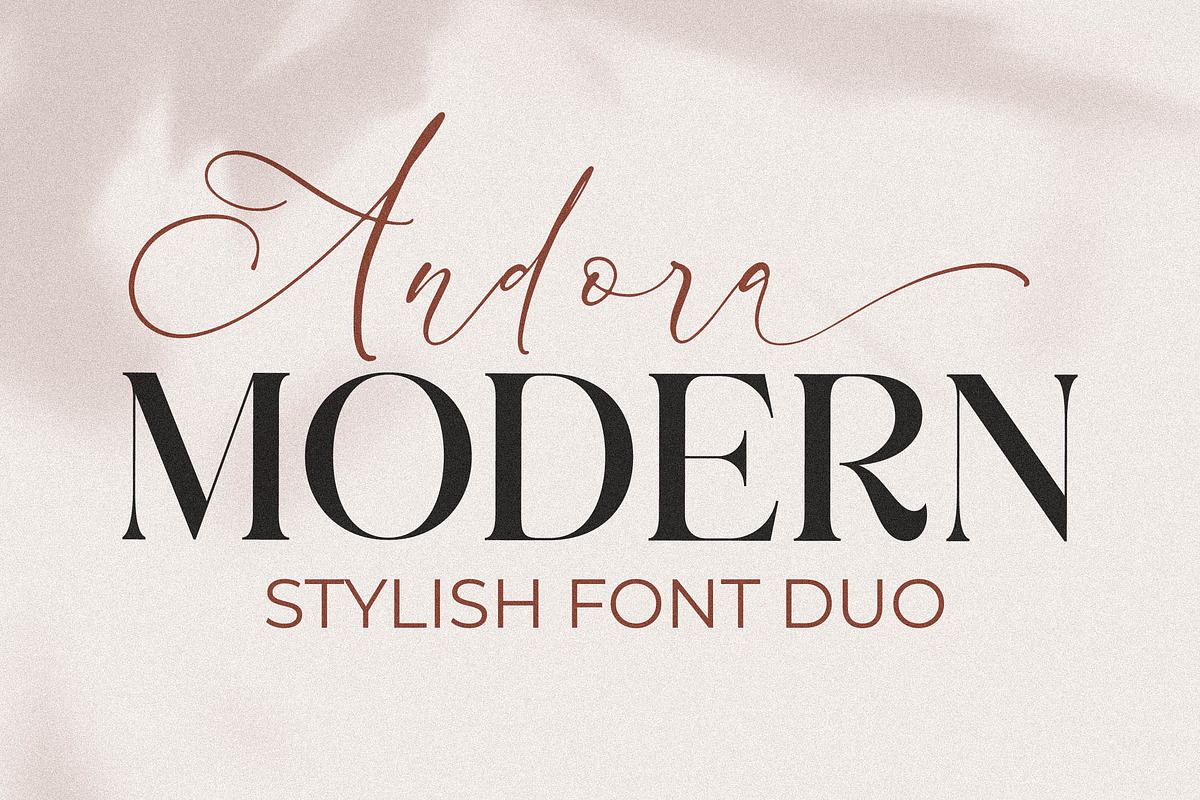
Andora Modern Font Duo Free Download
Andora Modern Font Duo Free Download is a stylish and versatile typeface pair that blends a sleek serif with a graceful script, perfect for creating elegant, cohesive designs. Ideal for branding, wedding invitations, fashion lookbooks, packaging, and upscale social media content, this duo adds both professionalism and personality to your typography.
The serif font brings a clean, refined structure, while the script adds a flowing, handwritten touch—making it easy to create layered, high-end compositions with a balanced contrast. Andora is your go-to for timeless yet contemporary design.